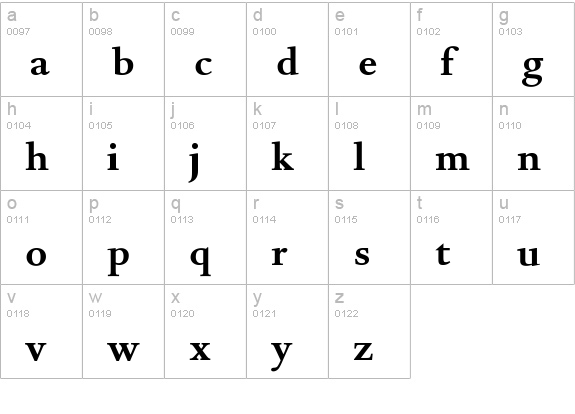
DTL Romulus T Bold is a strong, high-contrast variant in the DTL typeface family \xE2\x80\x94 well suited to headlines, attention-grabbing titles, and strong calls-to-action.
The DTL Romulus T Bold font is a bold and striking typeface designed for modern and impactful typography projects. Its strong and commanding presence makes it ideal for headlines, titles, and attention-grabbing designs. With its clean lines and sleek design, this font exudes a sense of authority and sophistication. Best of all, the DTL Romulus T Bold font is available for free download at FontsMarket.com. Whether you're a professional designer looking to add a powerful font to your collection or a student working on a project, this font offers a high-quality option at no cost. Don't miss out on the opportunity to enhance your designs with this impressive typeface that is both versatile and visually appealing. Download the DTL Romulus T Bold font today and take your designs to the next level!